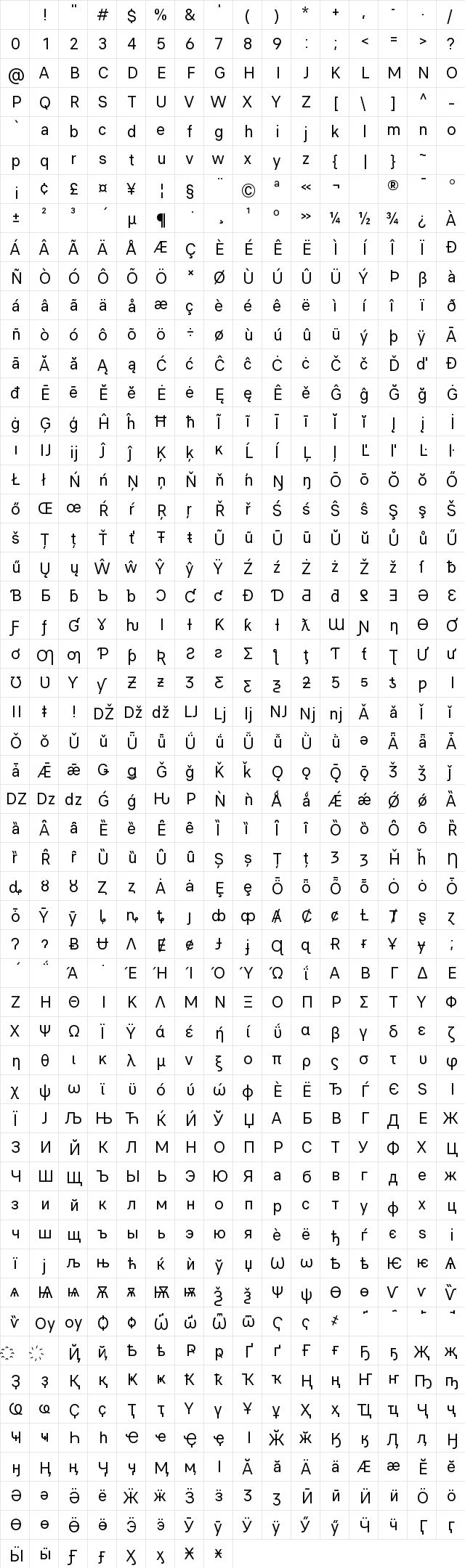
Complete Finder Regular glyph index. Displaying only characters natively supported by Finder Regular font.
Finder is a composed and adaptable typeface that performs quietly and consistently across a wide range of design contexts.